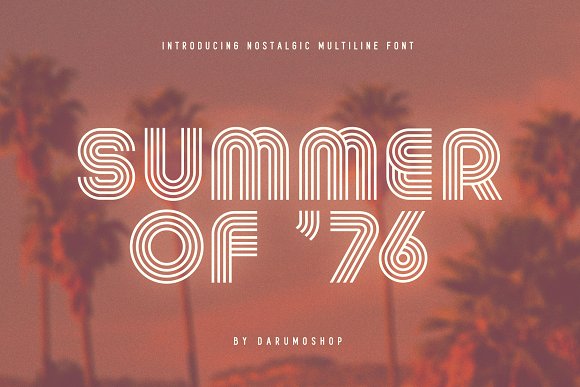
Summer 0f 76 – Multi-Line Font Script
Introducing Summer of ’76, a nostalgic multi-line font inspired by the 70’s aesthetic. Perfect for headers, can be used for text blocks also. This font could be the perfect solution if you want to give a lovely retro touch to your designs. Summer of ’76 was created especially for Hot Summer of 1976 vector graphic pack. But you can use it separately for your amazing designs.